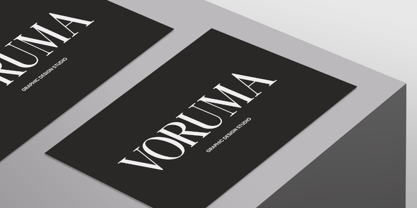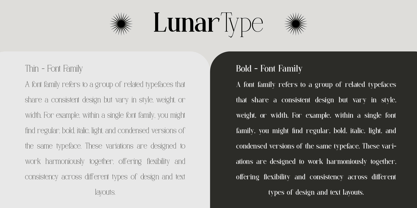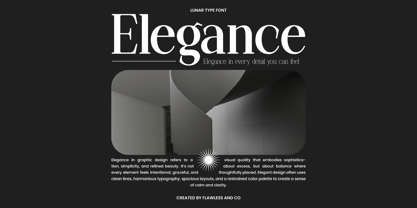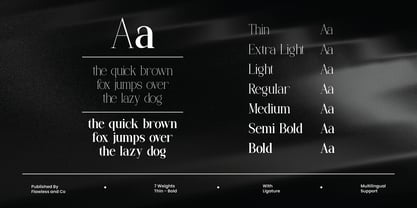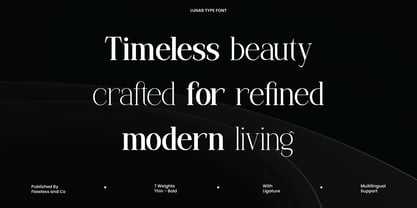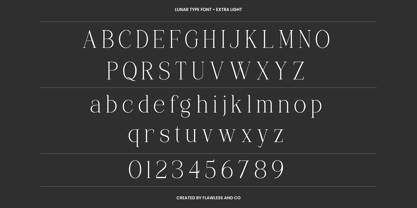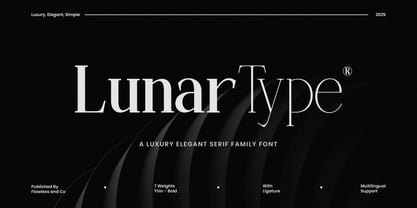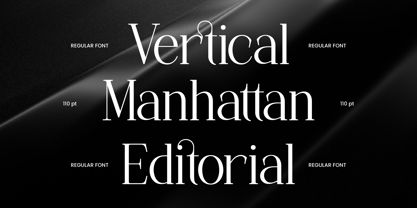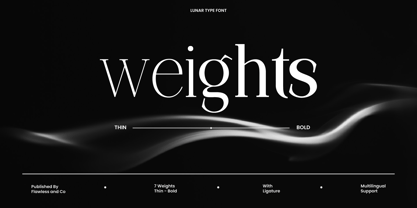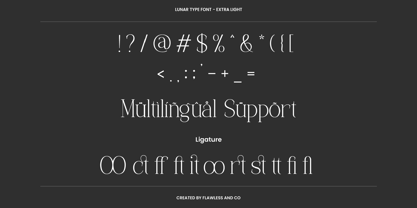
Lunar Type
Lunar Type is a refined serif family font that embodies the essence of sophistication, minimalism, and modern class. Designed with precision and grace, Lunar Type features a harmonious balance of thin and bold weights, making it perfect for brands, editorials, and high-end visual identities. Each letterform is crafted to reflect timeless beauty and quiet confidence — offering a smooth reading experience while elevating your design with understated luxury. From fashion lookbooks to elegant branding and minimalist design systems, Lunar Type delivers a premium typographic experience.
Features :
Multilingual, Uppercase alphabet A-Z, Lowercase alphabet a-z, Numbers 0-9, Some punctuation, Alternates & Ligatures